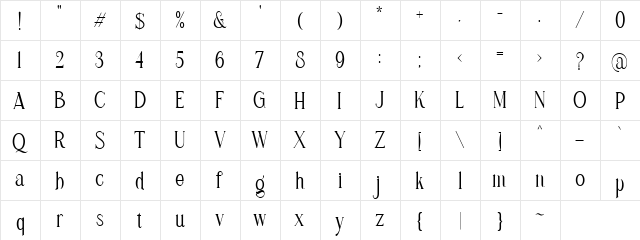
Brilliantly DEMO Regular Font Preview
Brilliantly DEMO Regular
Brilliantly DEMO Regular Font Details
Design Context for Brilliantly DEMO Typeface
Brilliantly DEMO is a composed and adaptable typeface that performs quietly and consistently across a wide range of design contexts.
Pro Tip: Use Brilliantly DEMO in both headline and body roles to test its range before committing to a single application.